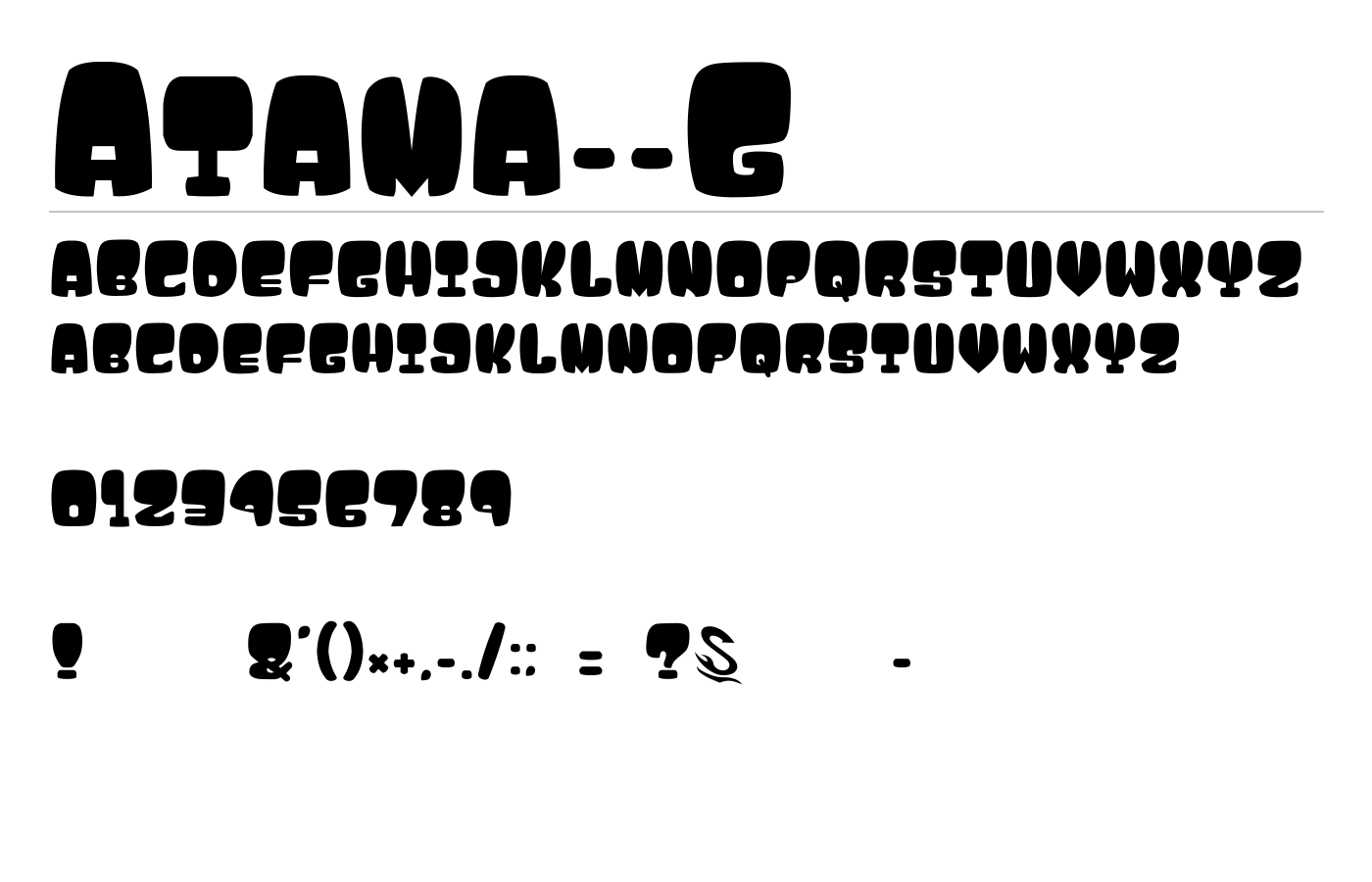
Atama__G is a bold, playful sans serif font with rounded, chunky letterforms that give it a friendly and approachable feel. Its thick strokes and casual shapes make it perfect for eye-catching headlines, posters, and branding where a fun, informal vibe is desired. This font works well for creative projects and youthful brands looking to stand out with a distinctive, energetic style.
Atama__G Font